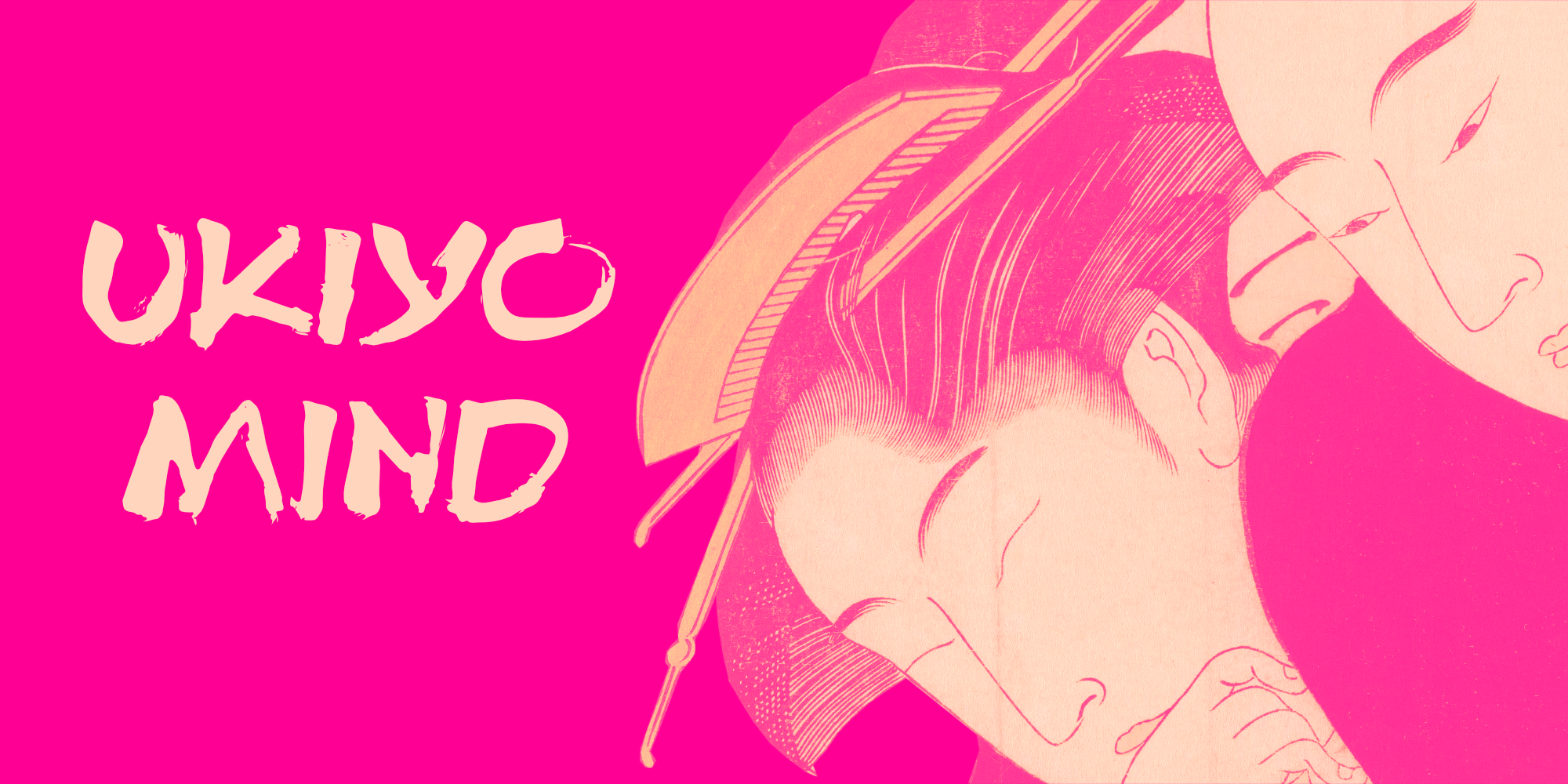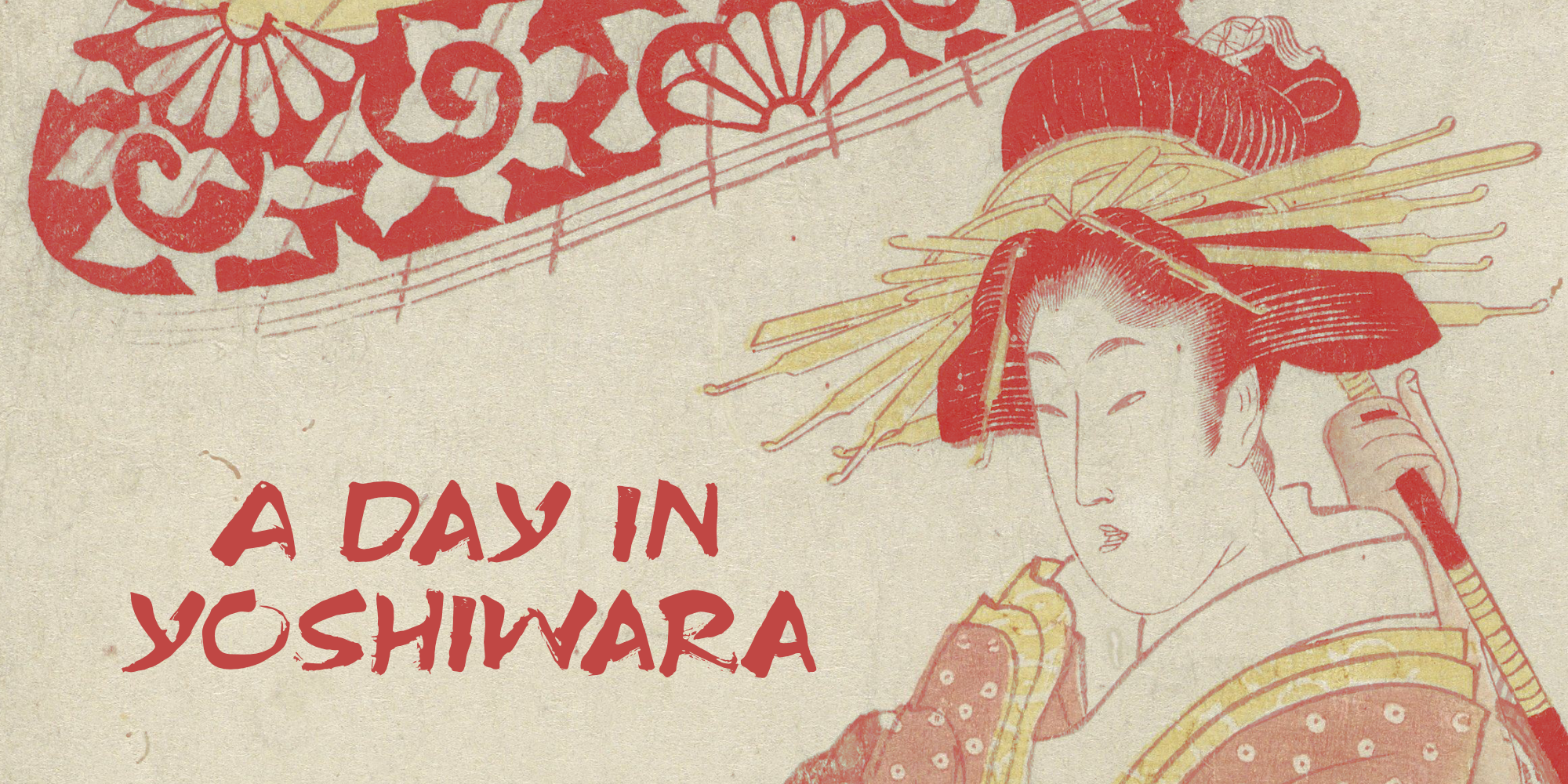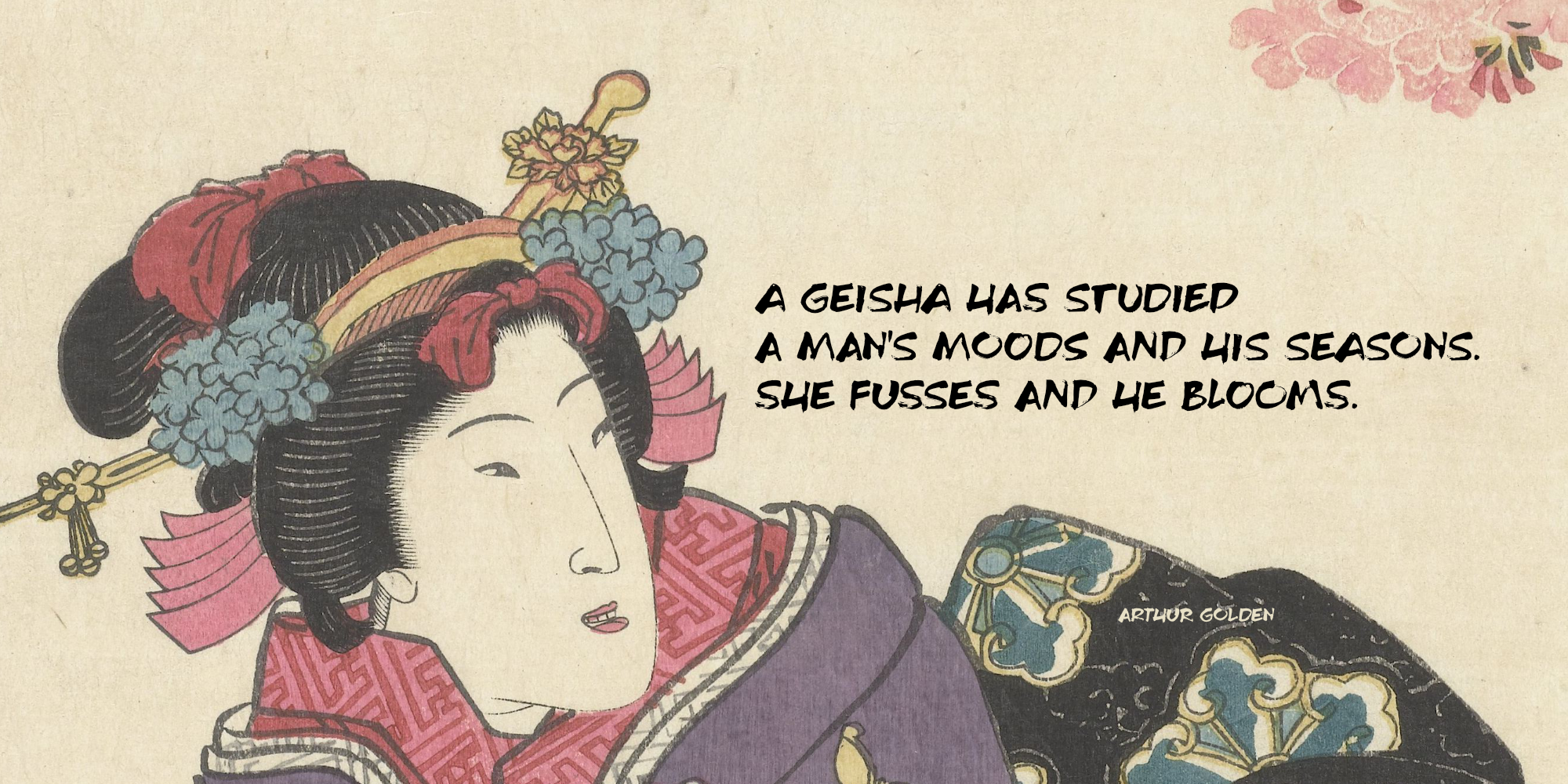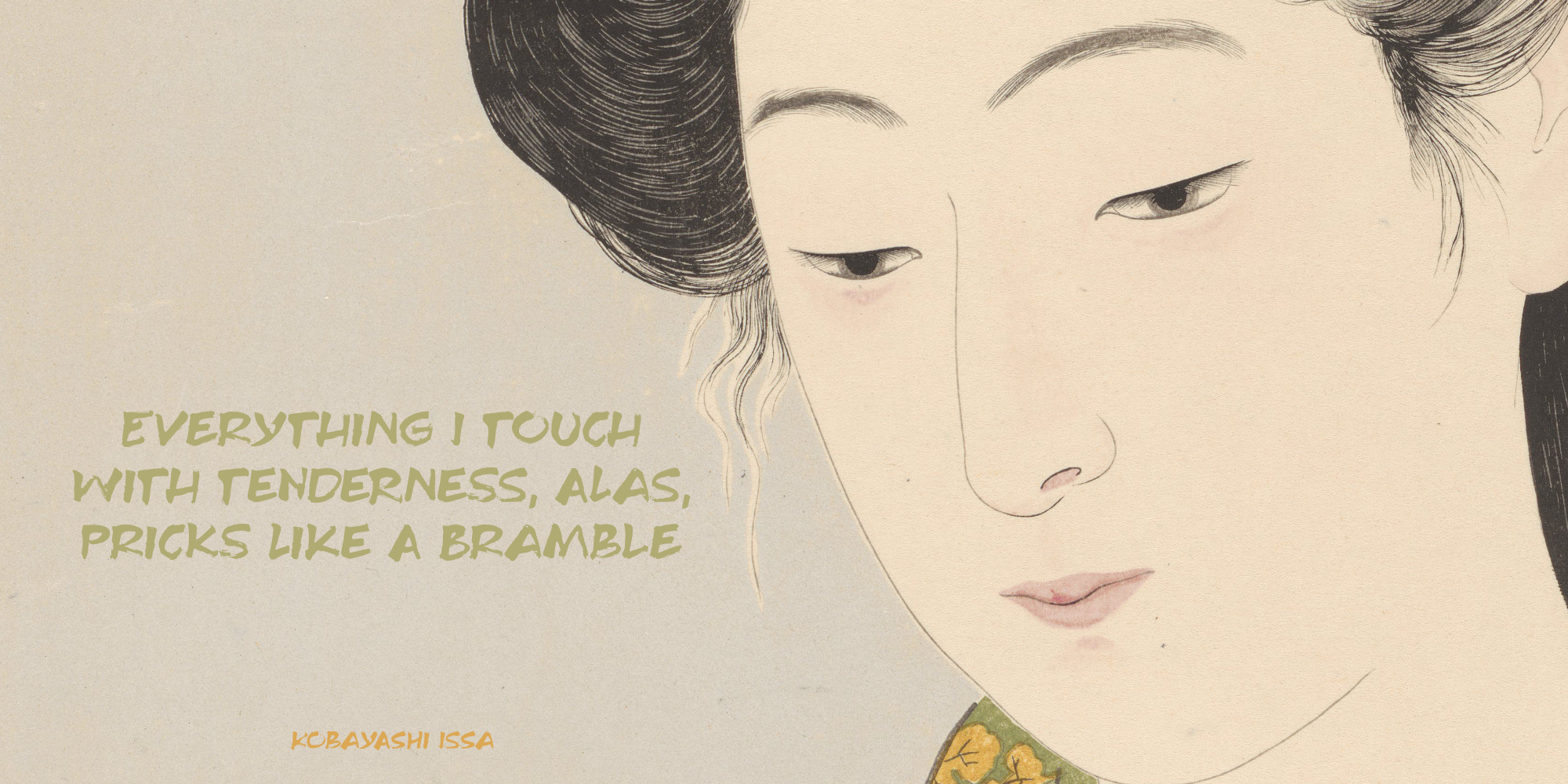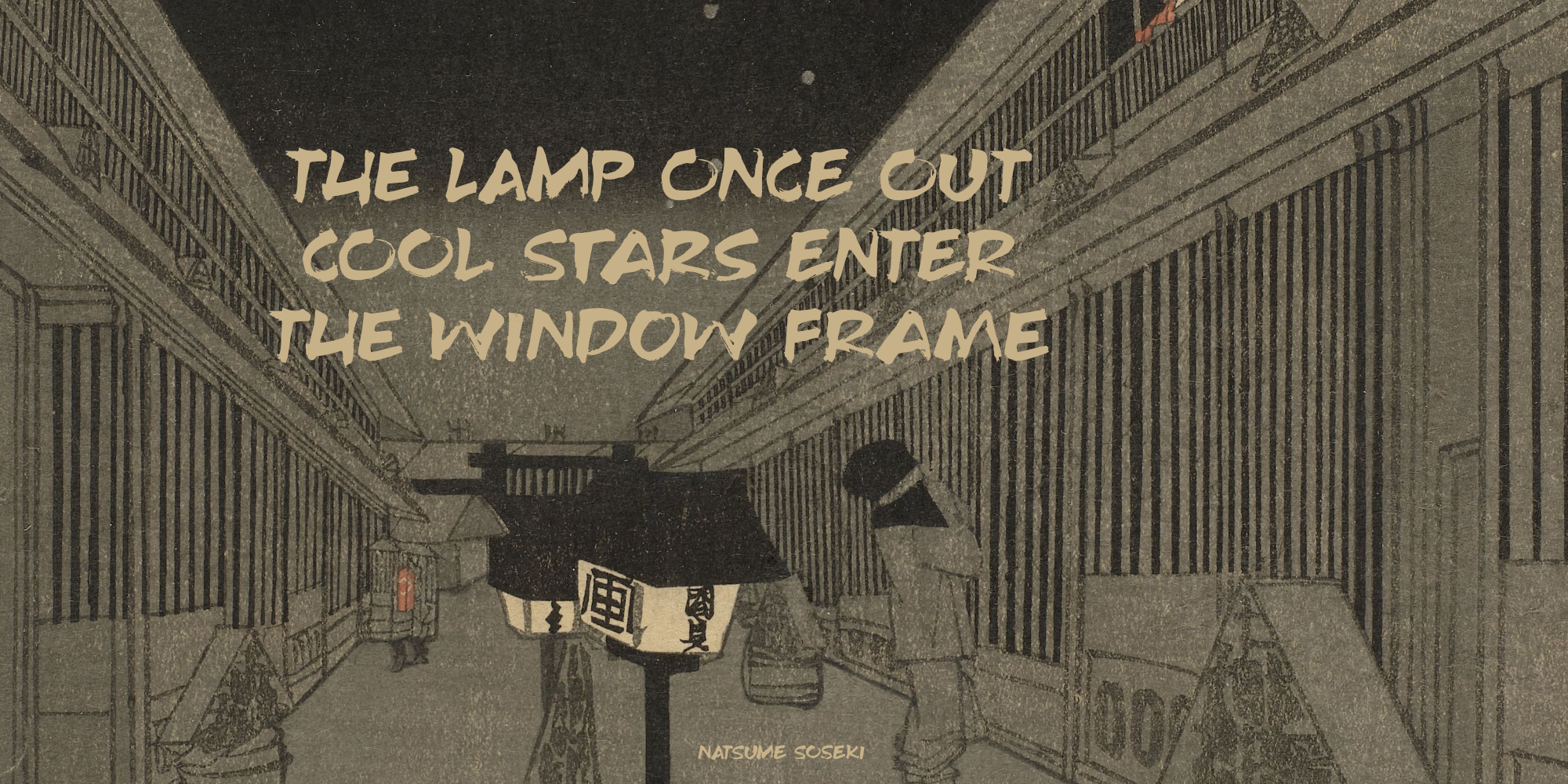
Ukiyo Mind (2 fonts)
Ukiyo Mind is a really nice brush font, which I probably made using Chinese ink and a brush. It comes with extensive language support and a set of alternates for the lower case glyphs.